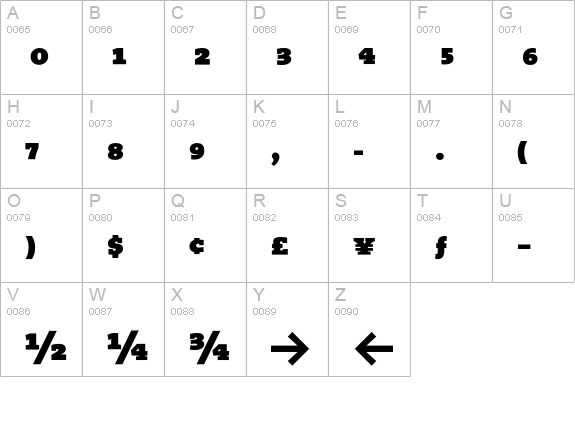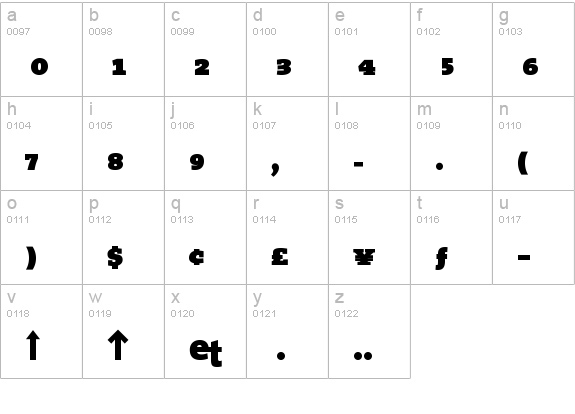
TheSerif Black Expert Font Details
TheSerif Black Expert is a maximum-weight, dramatic variant in the TheSerif typeface family \xE2\x80\x94 well suited to maximum-impact headlines, posters, and packaging.
TheSerif Black Expert font is a bold and sophisticated typeface that exudes elegance and professionalism. With its clean lines and refined curves, this font is perfect for creating eye-catching headlines, attention-grabbing logos, and impactful branding materials. TheSerif Black Expert font commands attention and conveys a sense of authority, making it ideal for corporate presentations, editorial designs, and high-end advertisements. With its expertly designed serifs and stunningly balanced proportions, TheSerif Black Expert font offers a timeless and classic aesthetic that will never go out of style. Its versatility allows it to be used in a variety of design projects, from print to digital media. One of the most notable features of TheSerif Black Expert font is that it is freely available to download at FontsMarket.com. This means that designers and creatives can access this exceptional font without any cost or restrictions. The availability of this font for free ensures that it can be easily incorporated into any project, regardless of budget constraints. Whether you're a professional designer looking to enhance your portfolio or a novice designer just starting out, TheSerif Black Expert font is a must-have in your typographic arsenal. Its bold and powerful presence will make a lasting impression on any audience, while its effortless sophistication will elevate your designs to new levels of excellence. Download TheSerif Black Expert font for free at FontsMarket.com and unlock the potential to create stunning and impactful designs that leave a lasting impression.